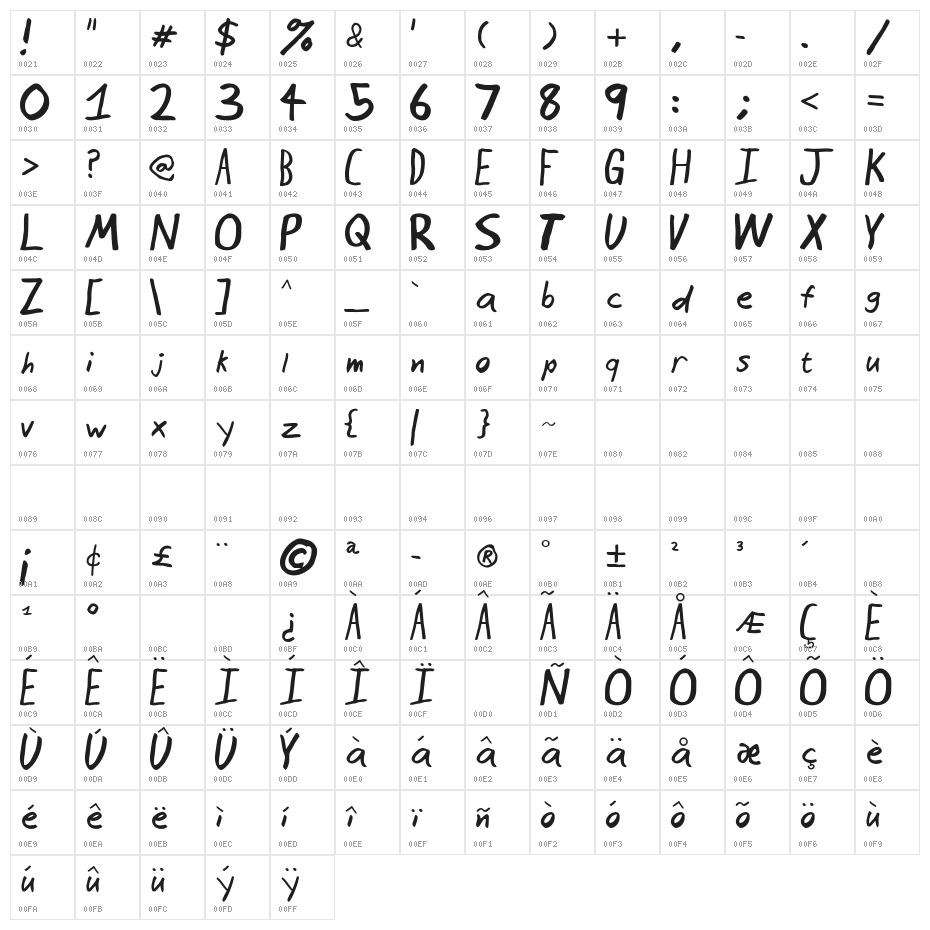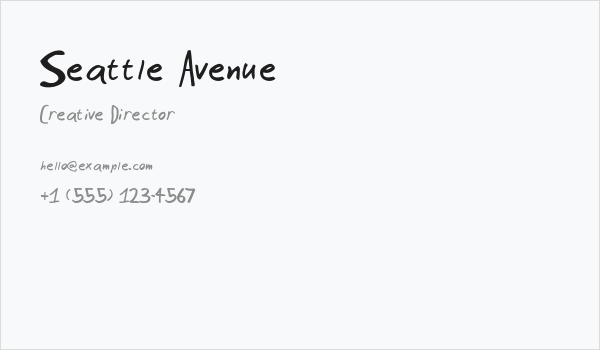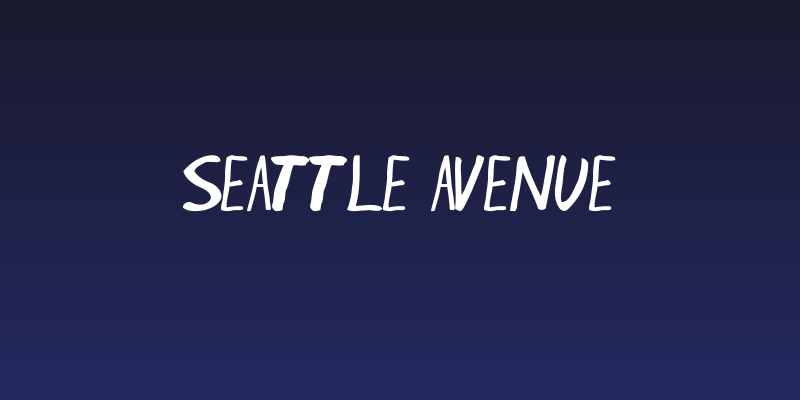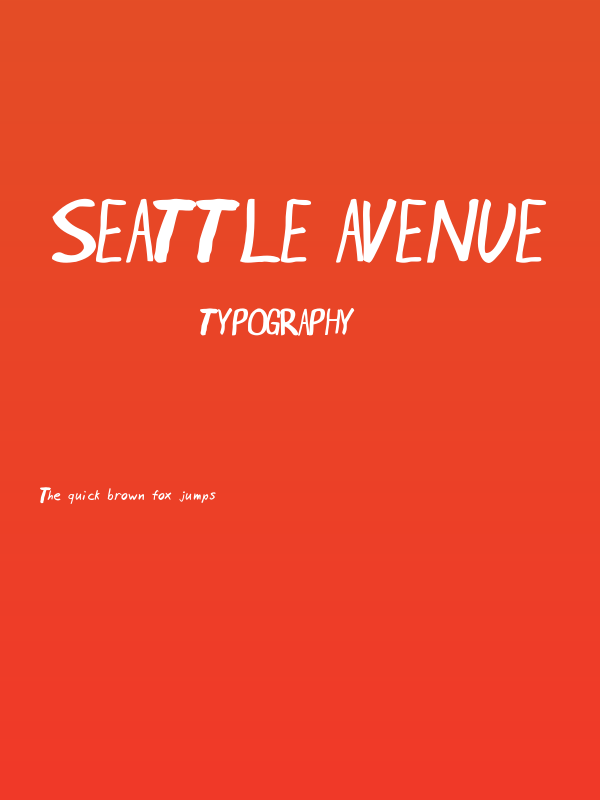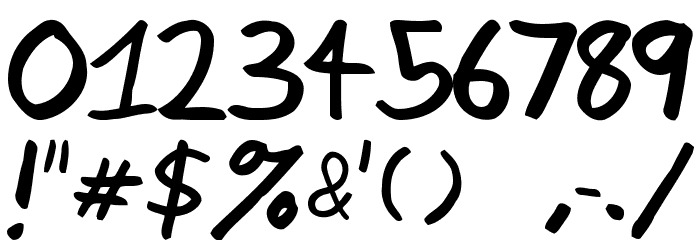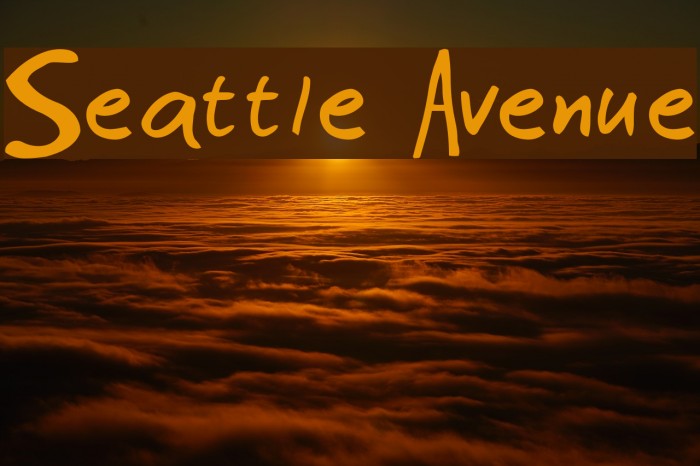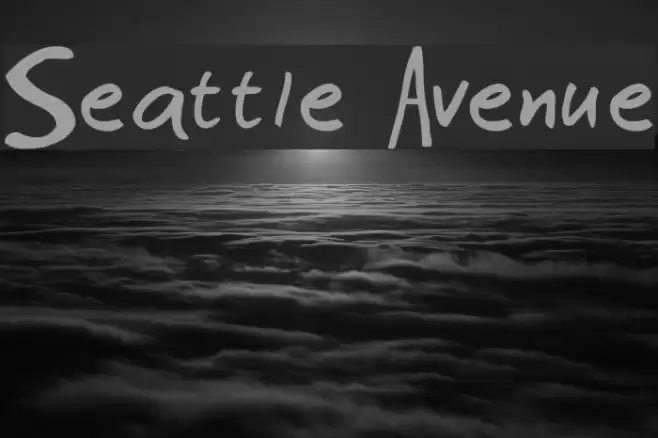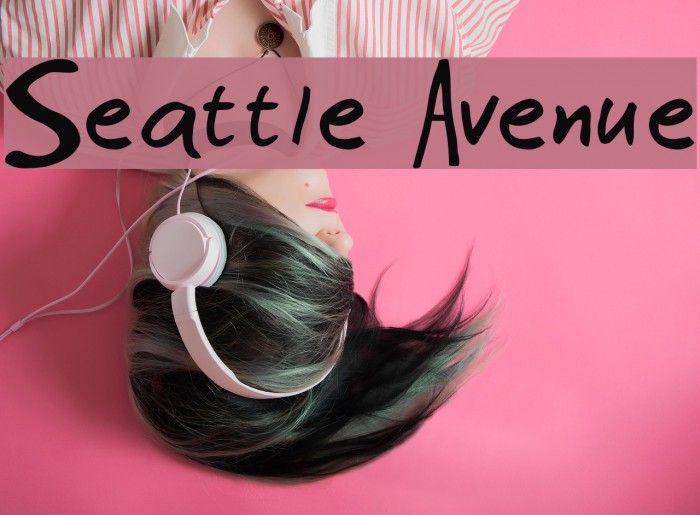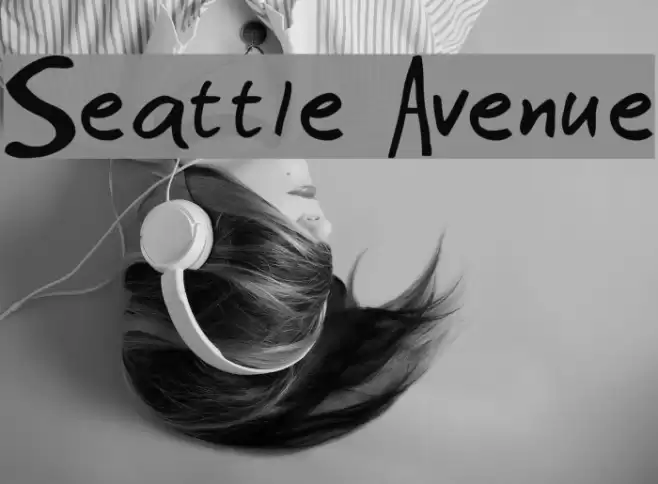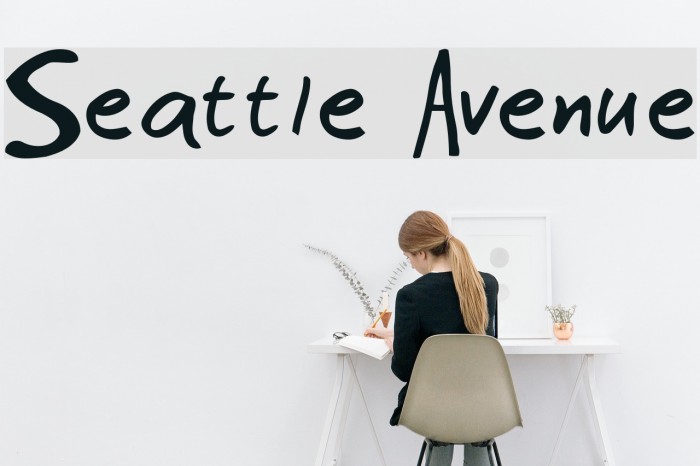
Seattle Avenue Font
| Gesamtstil | Playful, Casual |
| Anwendungsfall | Headlines, Creative projects, Informal communications |
| Vorgeschlagene Projekte | Ideal for greeting cards, children's books, creative posters, and personal branding. |